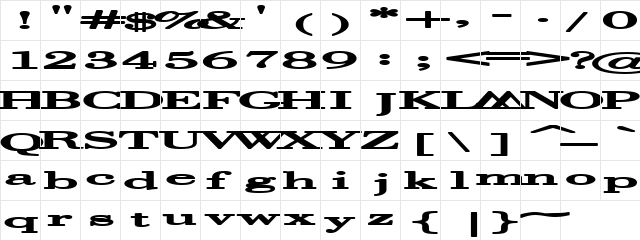
Halcyonia Superwide
Design Context for Halcyonia Typeface
Halcyonia is a composed and adaptable typeface that performs quietly and consistently across a wide range of design contexts.